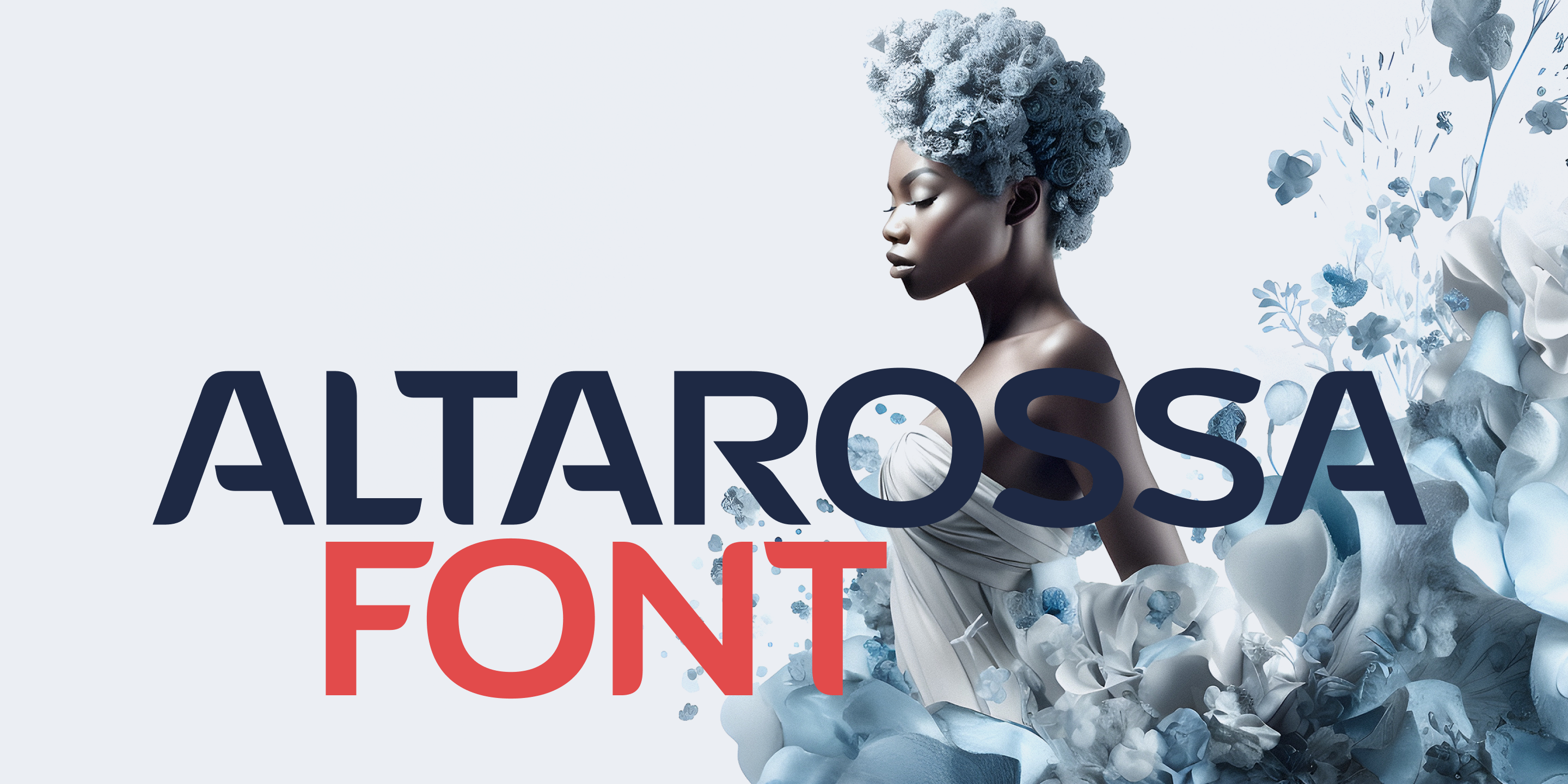
Altarossa Font is ideal for fashion branding, wedding invitations, sports logos, and luxury packaging. Its modern sans-serif style with rounded corners and curvy lines excels in headlines, social media graphics, and editorial layouts, evoking a natural, chic aesthetic.
Why is Altarossa Font exciting? Designed by Alexey Popov and published by Popskraft, its blend of classic elegance and nature-inspired plasticity creates a versatile, captivating charm that’s both bold and tender, perfect for standout designs.
The Altarossa Font family includes 10 styles, such as Regular, Extra Bold, and various weights, offering flexibility for diverse creative projects.